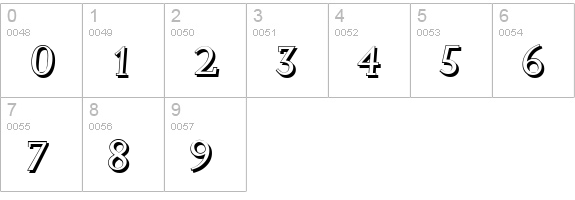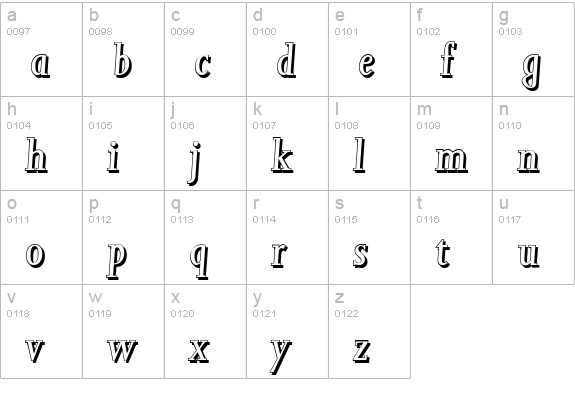
JessicaShadow-Italic Font Details
JessicaShadow-Italic is a distinctive, italic variant in the JessicaShadow typeface family \xE2\x80\x94 well suited to design and typography projects.
Introducing JessicaShadow-Italic font, a stunning typeface that exudes elegance and sophistication. The italic style adds a touch of flair and uniqueness to any design project. With its sleek lines and graceful curves, this font is perfect for creating eye-catching headlines, logos, invitations, and more. What sets JessicaShadow-Italic font apart is that it is available for free download at FontsMarket.com. This means that you can easily access this beautiful font and use it in your personal or commercial projects without any cost. Don't miss out on the opportunity to enhance your designs with the timeless beauty of JessicaShadow-Italic font. Download it today and elevate your creations to the next level!